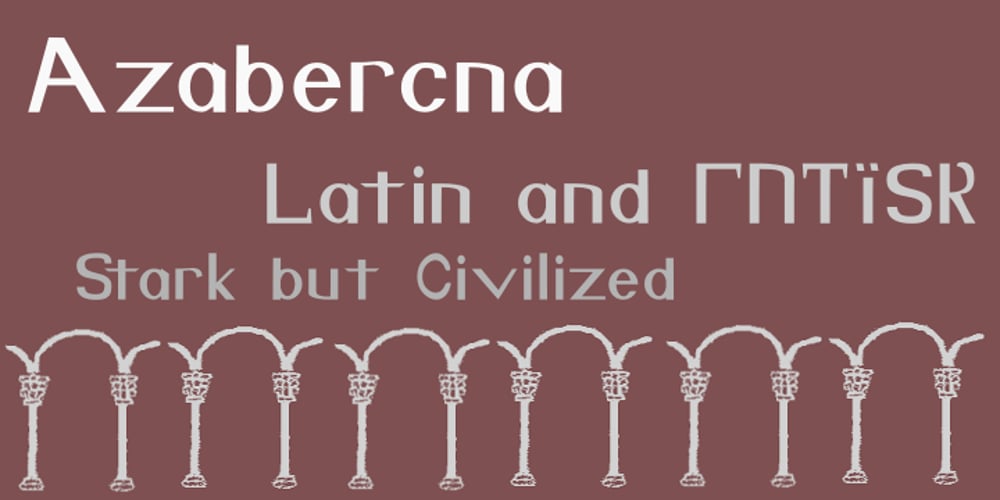
Azabercna Font Family was designed by Shane Brandes and published by Proportional Lime. Azabercna contains 22 styles and family package options. The Goths swept across Europe hastening about the dissolution of the Roman Empire, forever acquiring a disrepute noticeable to this day. Wulfilas, a bishop, translated the Bible into Gothic and developed the Gothic alphabet to accomplish this migration of culture and civilization to his people. So they were not all unlettered ruffians. This font takes the idea of gothic type and applies it to the 27 letters extant of the Gothic alphabet and to ours also (with nearly 500 defined glyphs), but in a way that reminds that not all that was Goth was war and destruction.